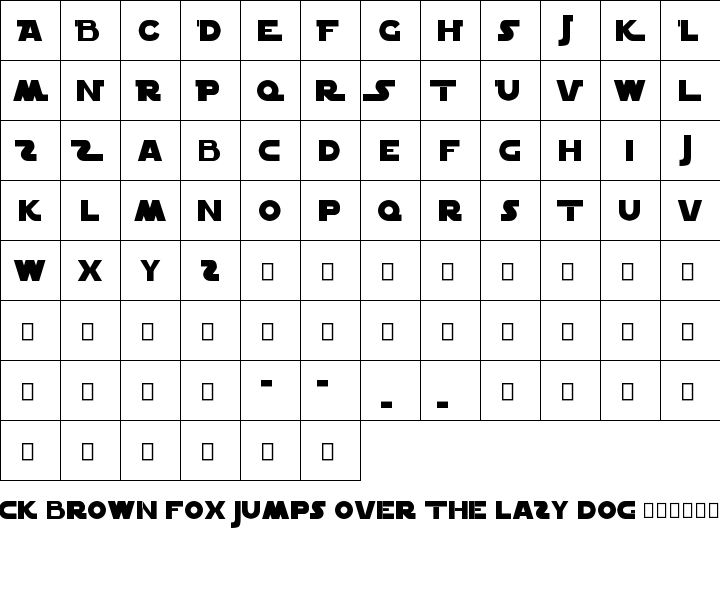
Today we are going to introduce a logo-based fancy font named Star Wars Font. This typeface is basically got inspiration from the font that was used in the logo of a fantasy movie named Star Wars. This movie is one of the biggest blockbusters and has become popular all around the world.
As the popularity of this film increases the demand for the font used in its logo has also increased. This fancy font has a bold and prominent texture style mostly best for logo designing and display use.
Designer of Star Wars Font
The original typeface that was used in creating its logo was News Gothic Font that was created by Morris Fuller Benton.
This fancy and prominent texture style is created by Davide Canavero. He is a well-known font creator who has design many creative fonts. While creating this font the main key focus was to design a creative font with a prominent texture appearance.
The original font News Gothic has designed with the family of its own News Gothic Std Medium, News Gothic Std Oblique, News Gothic Std Bold, News Gothic Std Bold Oblique.
This typeface is comprised of one style. This font style is comprised of a single style. This style is designed with the following features that include lowercase, uppercase letters, numbers, symbols, glyphs, special characters, and multi-language support.
View of Star Wars Font
It can support up to 54 languages.
What font is closest to Star Wars Font?
Some of the typographies are really similar to this font texture. But, the Soloist Font has the utmost similarities to this font. So, feel free to use this typeface as an alternative to the Soloist font style.